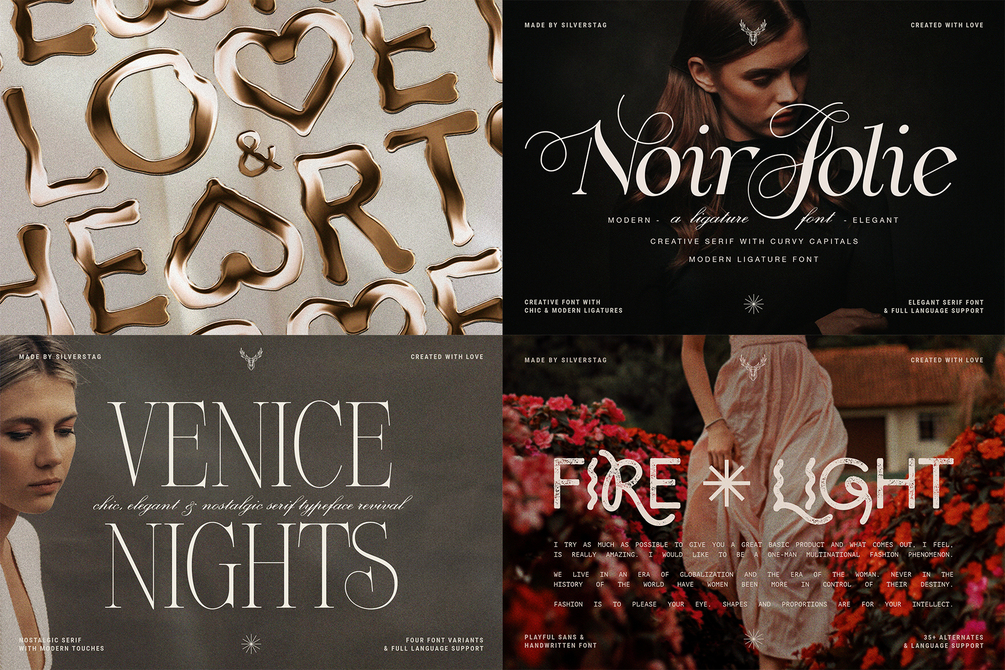
Modern Font Bundle Volume 4
I couldn't be more excited to present Font Bundle Vol 4, a meticulously curated compilation of my latest and most innovative typefaces. As a passionate designer and typography enthusiast, I've poured my creativity and expertise into crafting 12 remarkable fonts that are set to elevate your projects to new heights. With a combined value of over $200, this exclusive bundle is designed to inspire and empower designers, creatives, and businesses alike.
Citrus Shore - Playful Marker Font
KULTURE GROTESK - Modern Sans Serif
In Love With Rome Script Font
French Voyager - Chic Ligature Serif
March Evoked - Creative Display Font
Love & Hearts - Golden SVG Font Pack
Venice Nights - Nostalgic Serif Font
Authentic Romantic - Slab Serif Font
Noir Jolie - Modern Ligature Serif
BogArt Deco - Ligature Font Family
Poppy Bonfire - Modern Display Font